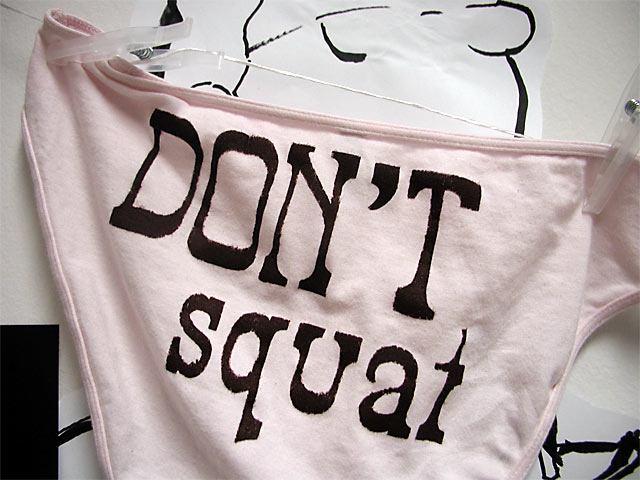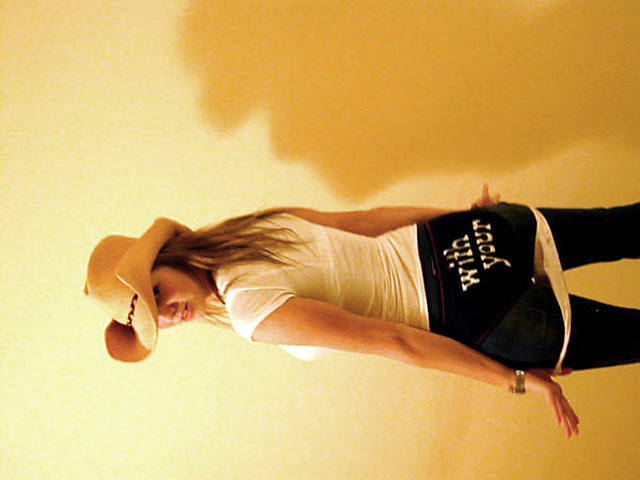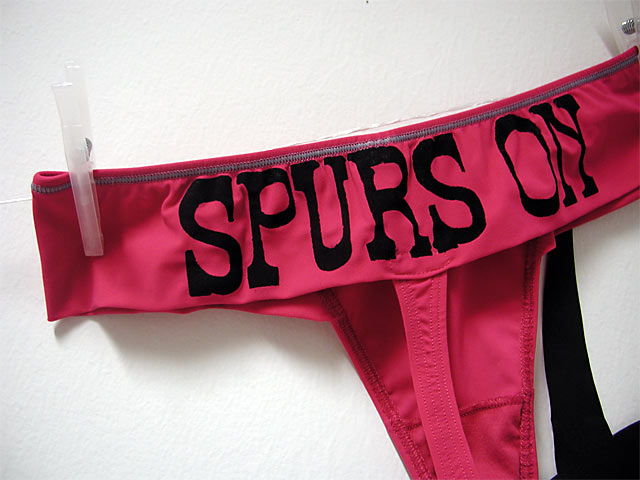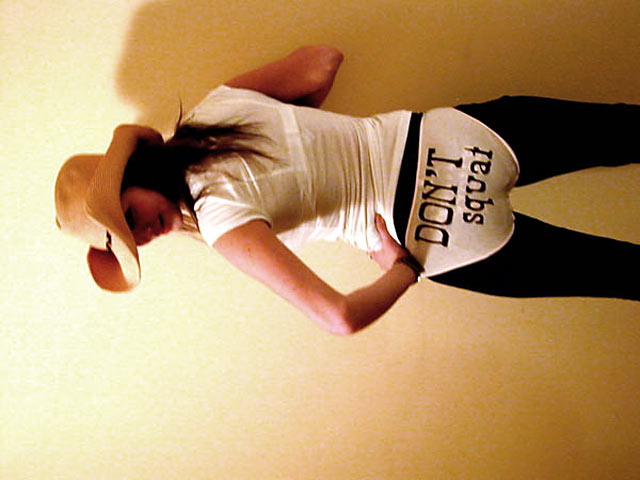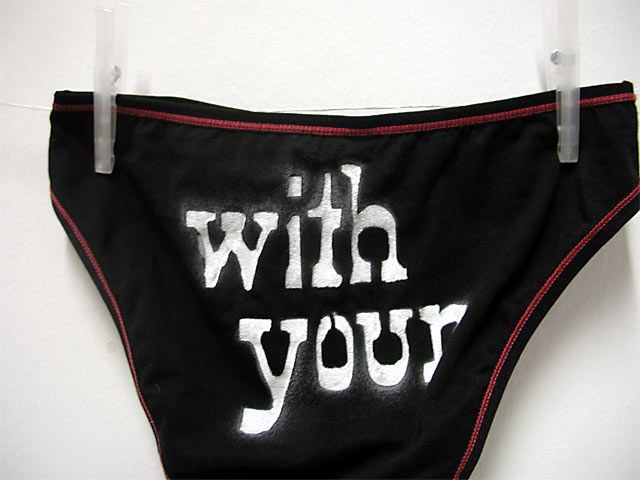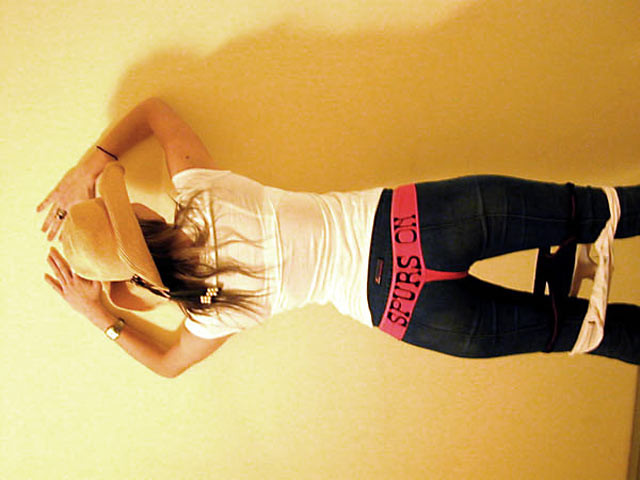
Tatjana Green : Don't squat with your spurs on
Yeeha! Bringing to you the western style font that will make your butt wiggle and your cowbuy boots dance! Representative of the crazy cowgirl character I am, this font brings you back to the good 'ol western scene where line dancing is life! WATCH THOSE SPURS!